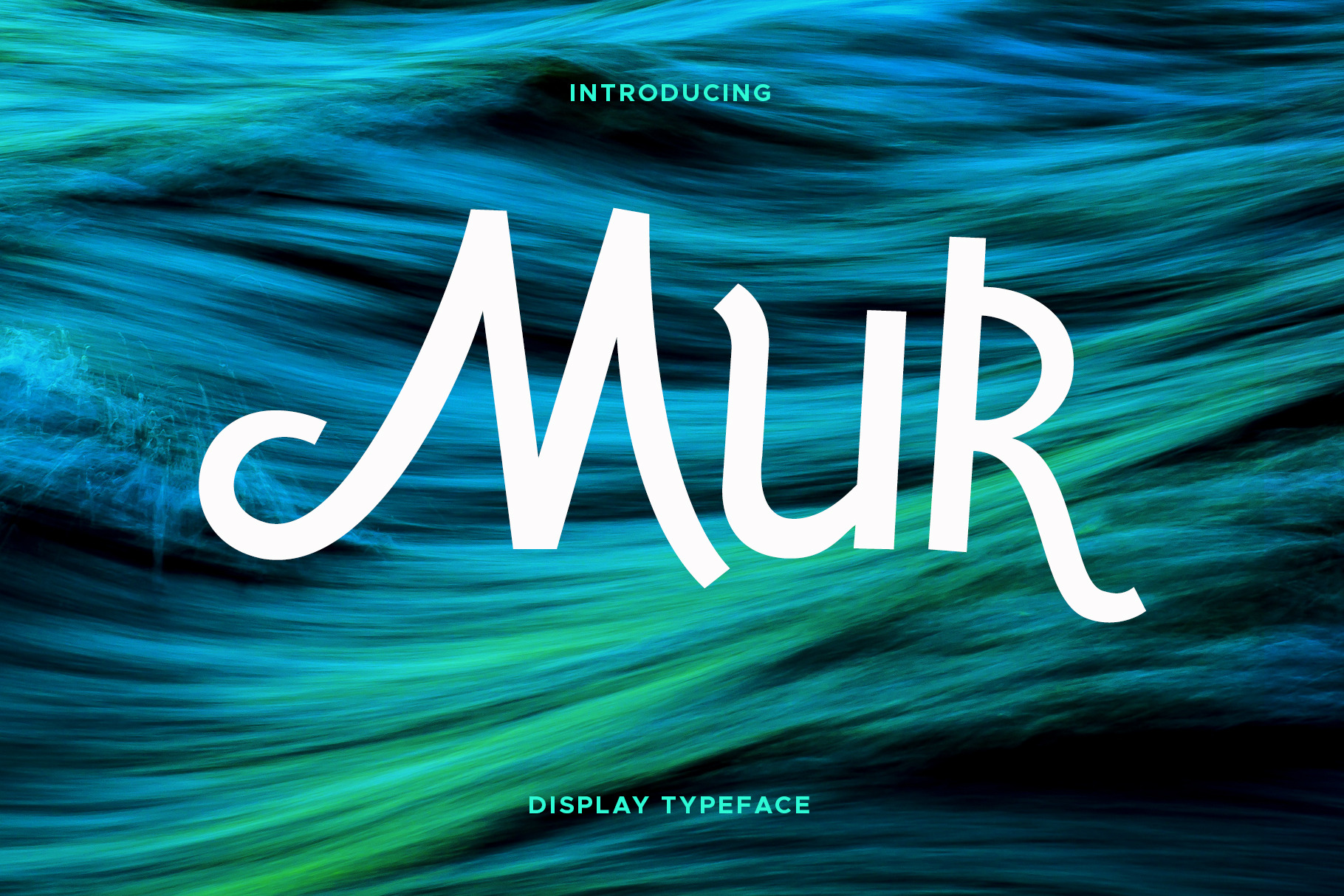
Mur Typeface
Mur is a display script typeface with all characters (uppercase and lowercase), digits, currency symbols, punctuation marks, ligatures and letters with diacritic marks (uppercase and lowercase).